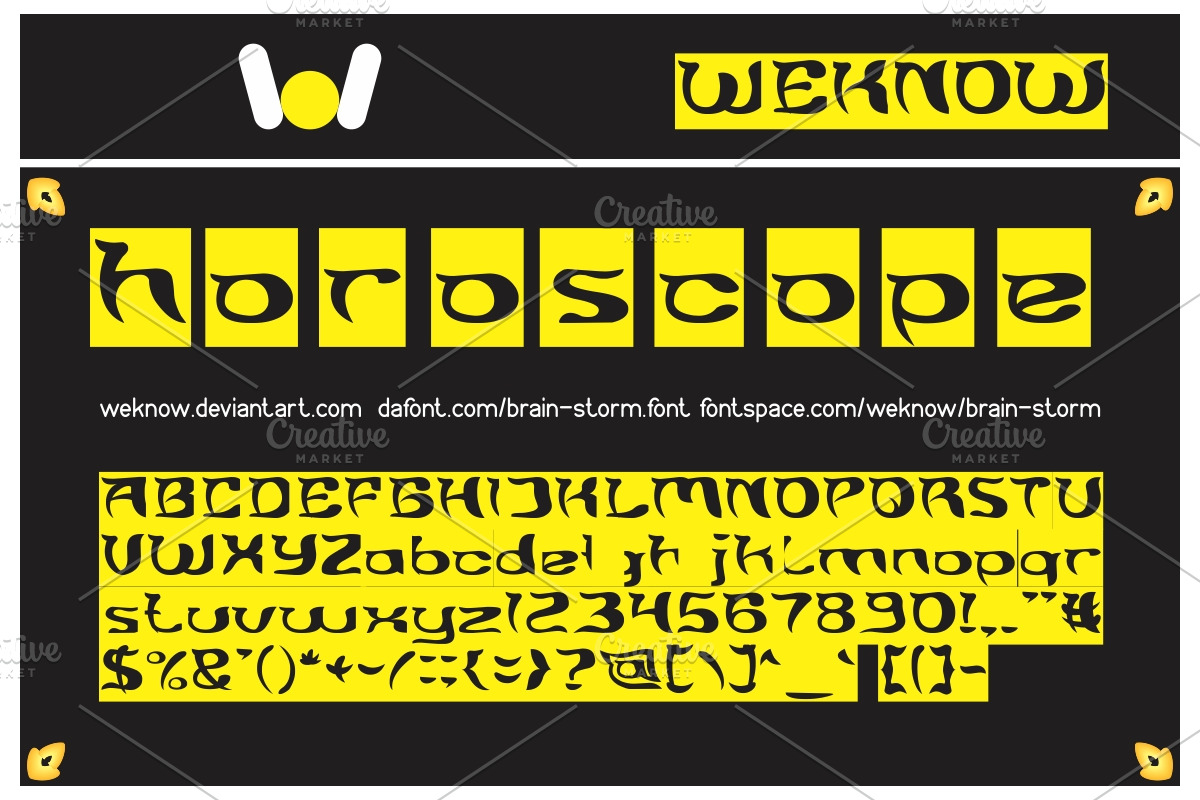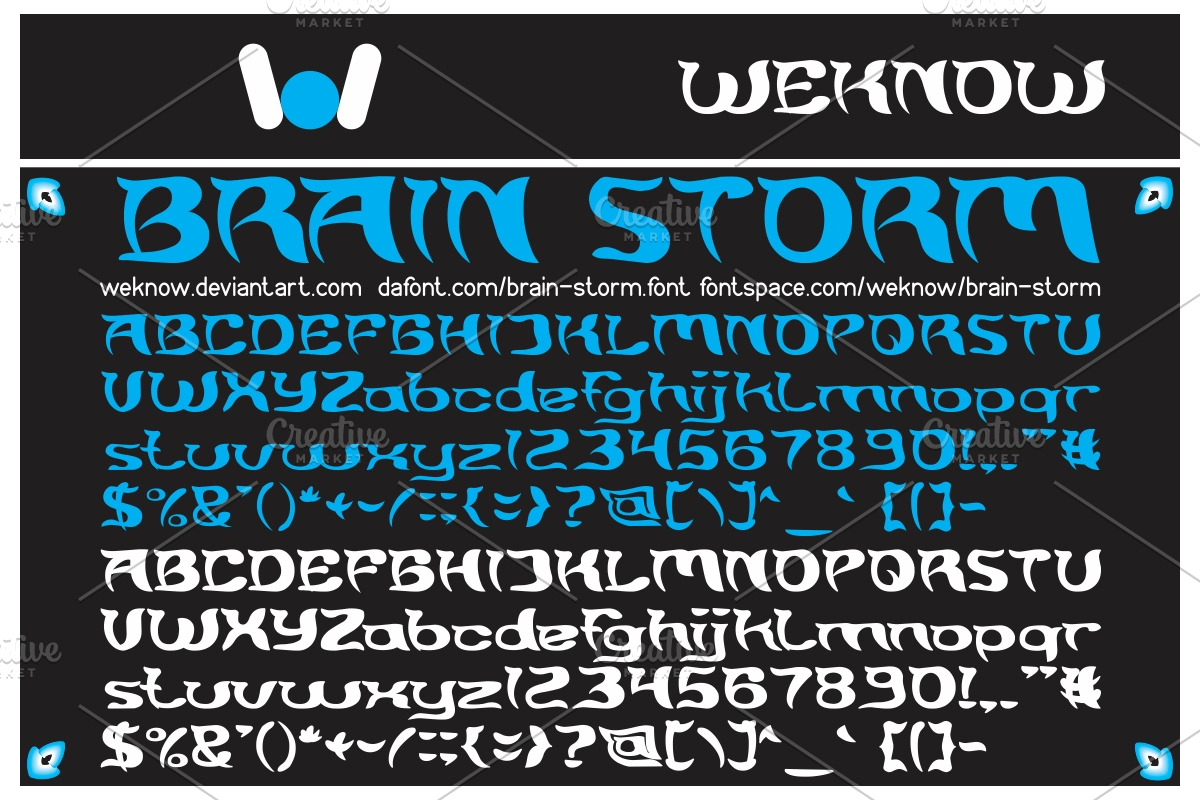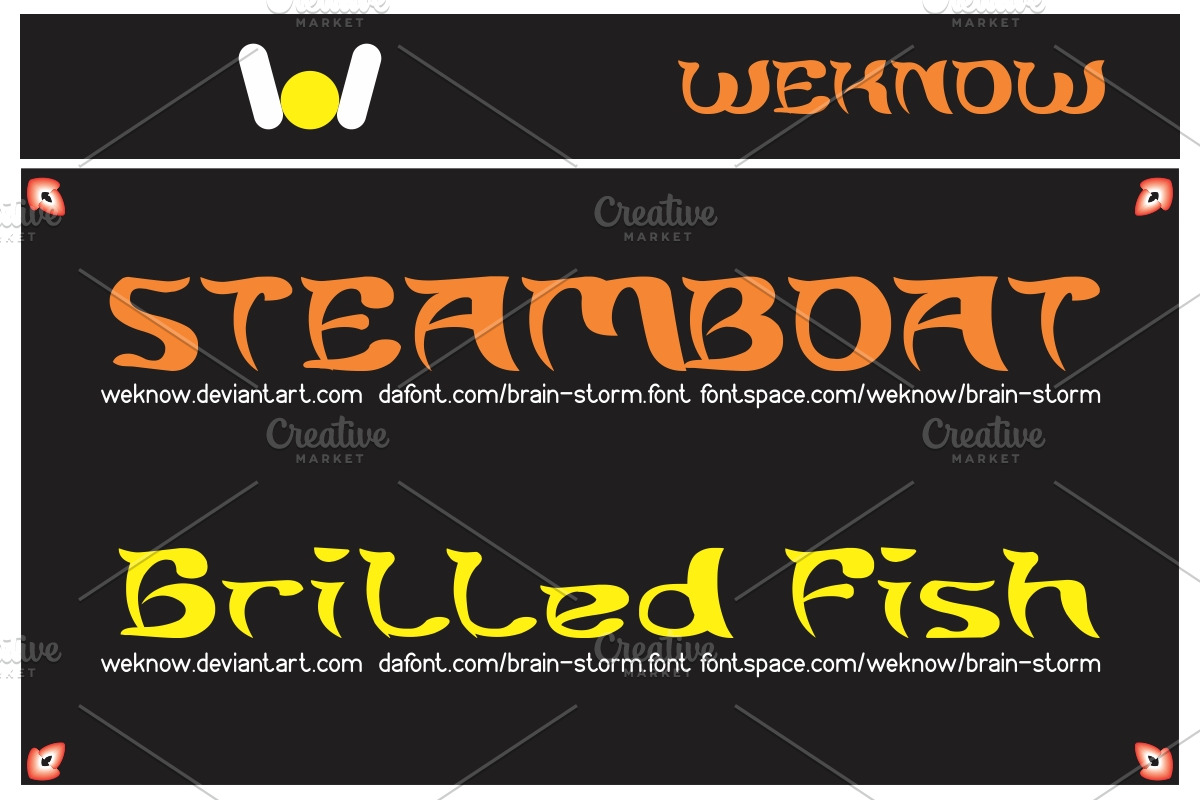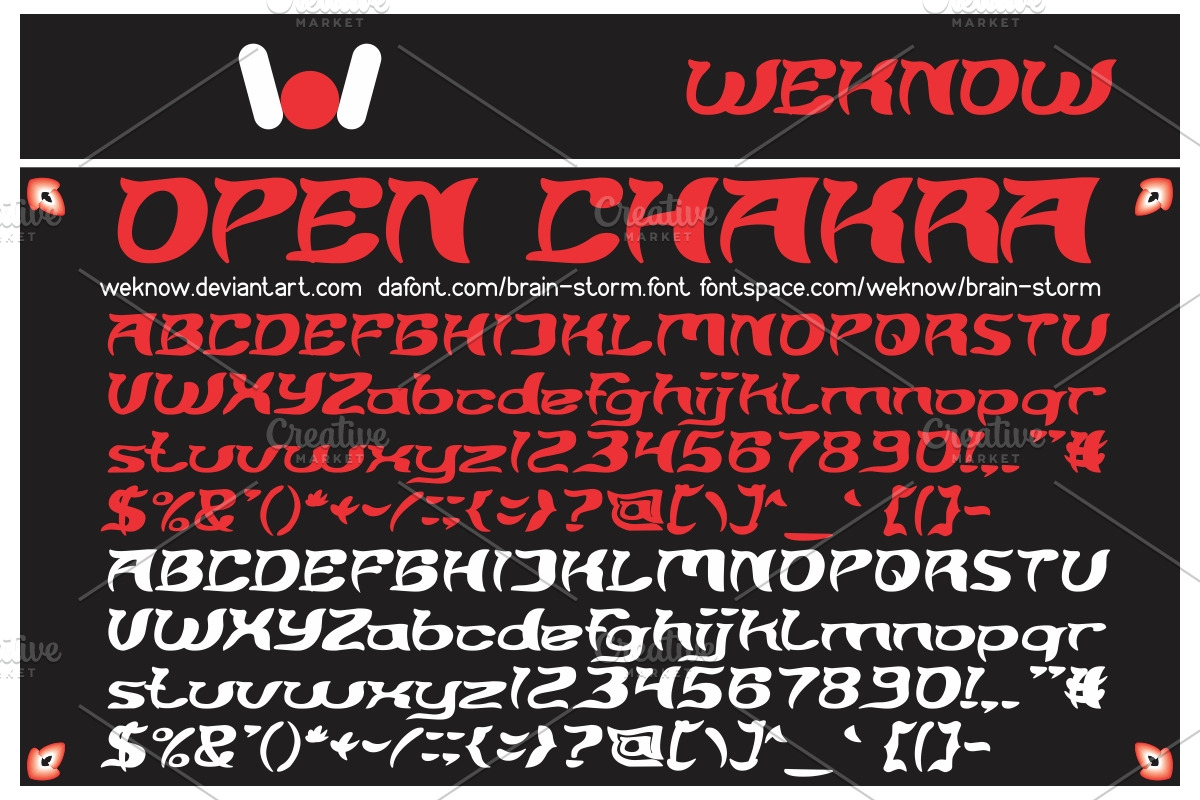
brain storm font
brain storm font by weknow is a font selected for branding, posters, packaging, typography.
Why brain storm font is worth a look
brain storm font by weknow fits naturally into Branding, posters, packaging, typography.